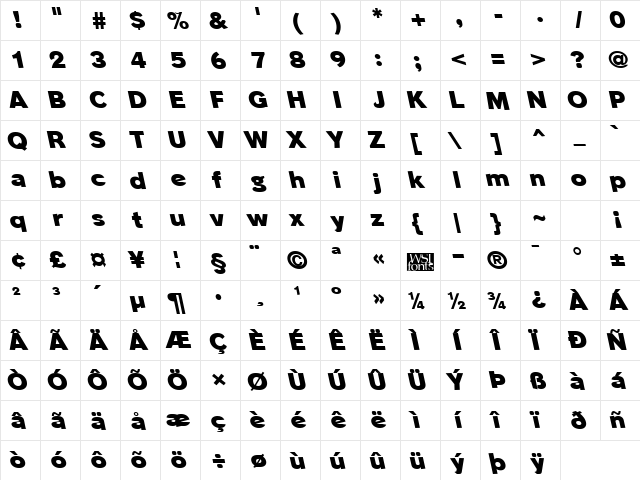
PhinsterLeftyHeavy Regular Font Preview
PhinsterLeftyHeavy Regular
Design Context for PhinsterLeftyHeavy Typeface
PhinsterLeftyHeavy offers clean, dependable letterforms without strong stylistic allegiance, making it a practical choice for designers who need flexibility.
Pro Tip: Use PhinsterLeftyHeavy in both headline and body roles to test its range before committing to a single application.